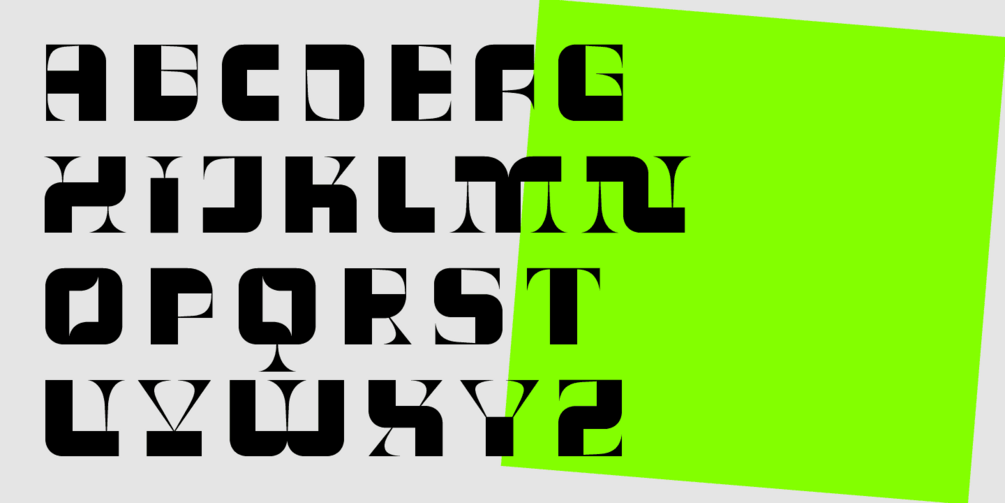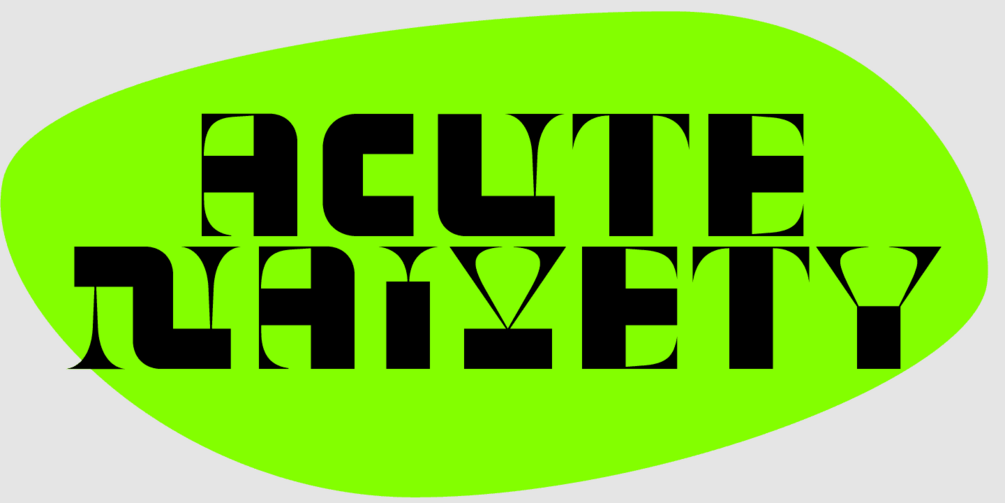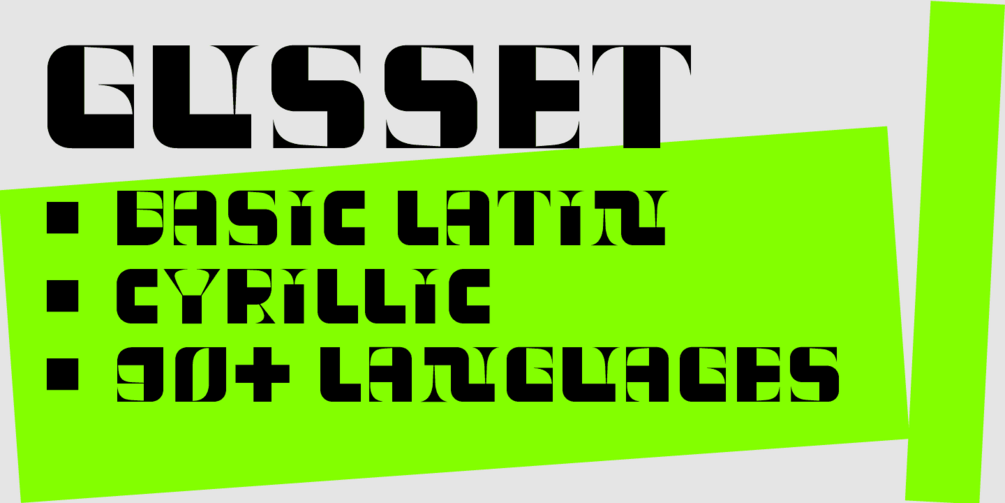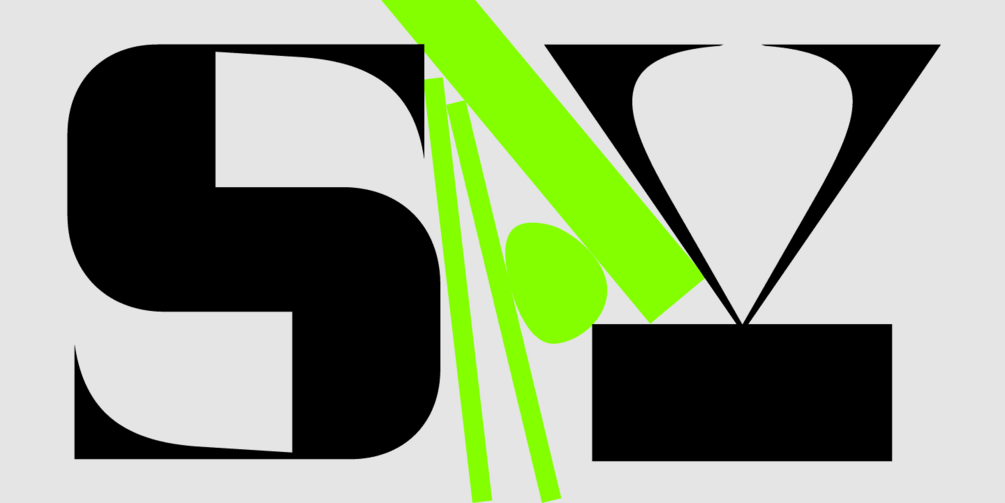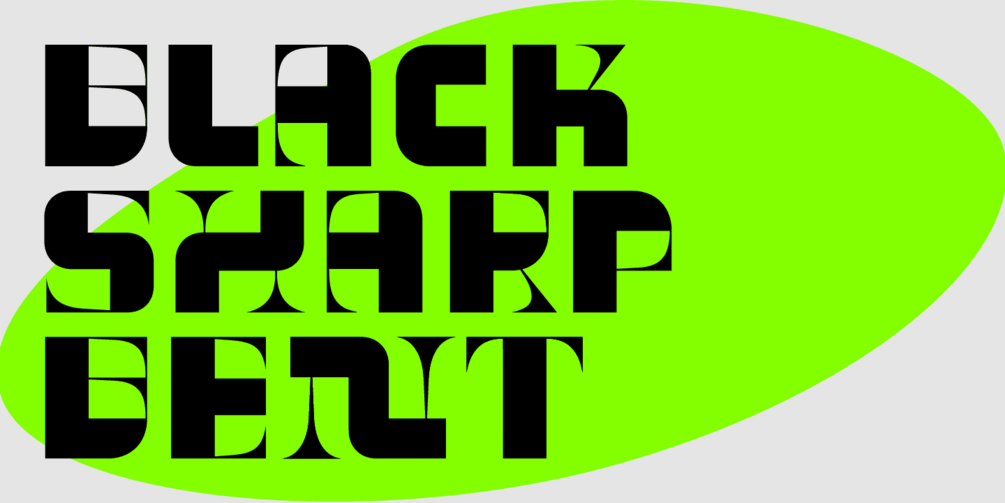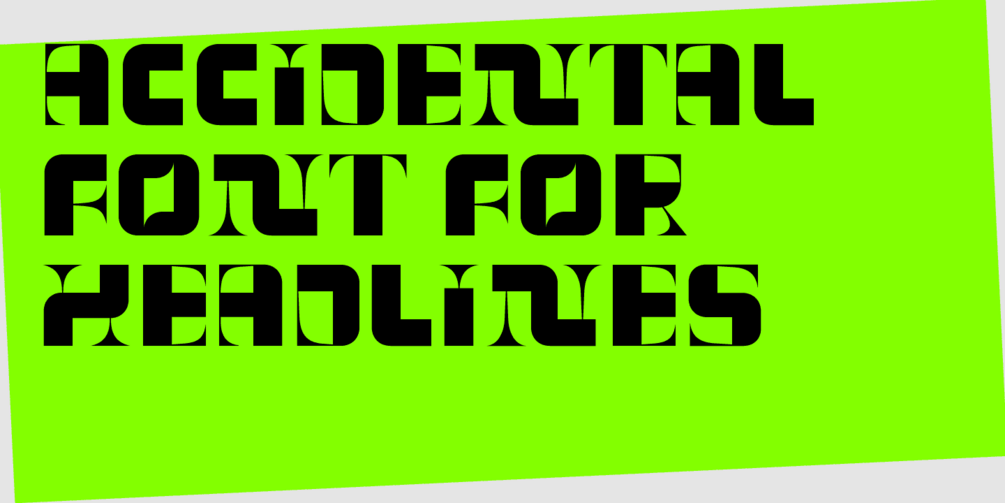
"GUSSET" font
Gusset is a large, active and strange font. It looks like a homemade construction for something that is not clear. We can say that this is a modular font, it is based only on thick strokes and thin, sharp inserts. Thanks to this, the text texture is very uniform. The font is very contrasting, because of this there is a sense of movement, thick strokes or thin strokes constantly come to the fore.
Basic and Extended Latin, Cyrillic, Diacritics, Numbers, Punctuation, Currencies, All Uppercase.